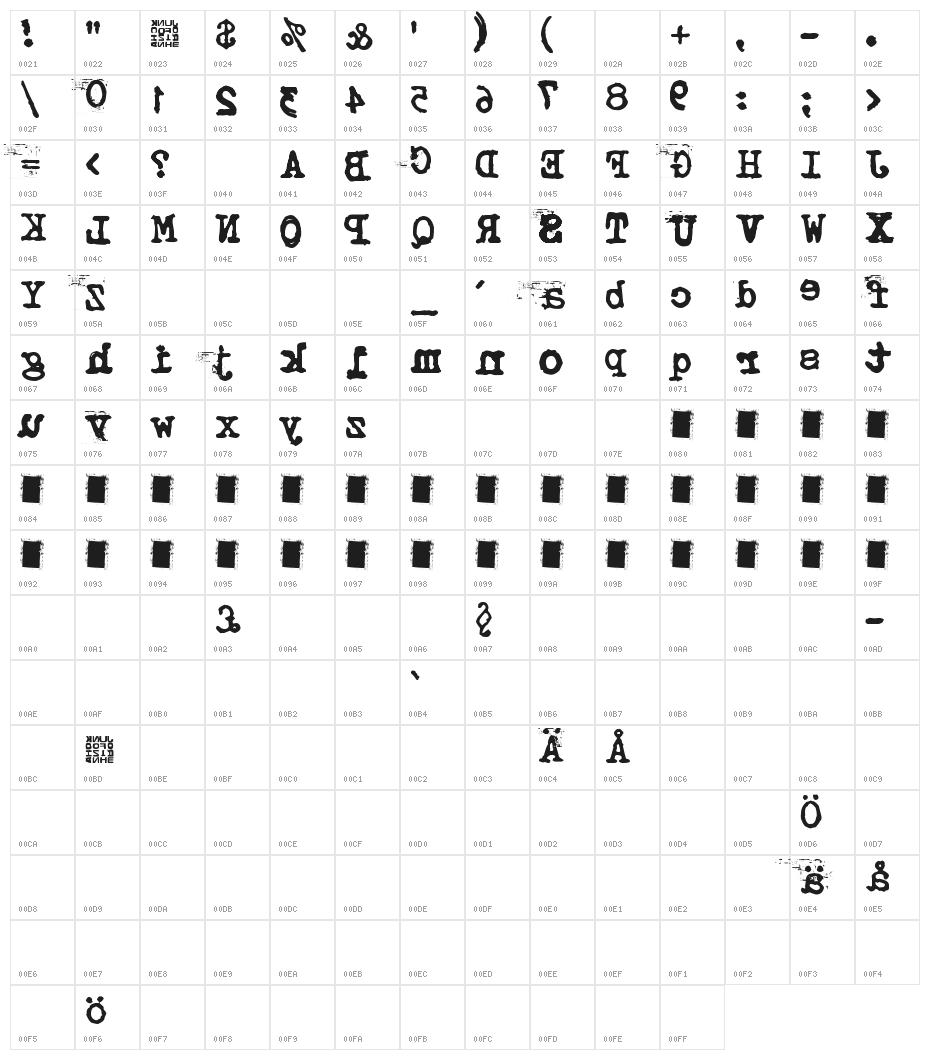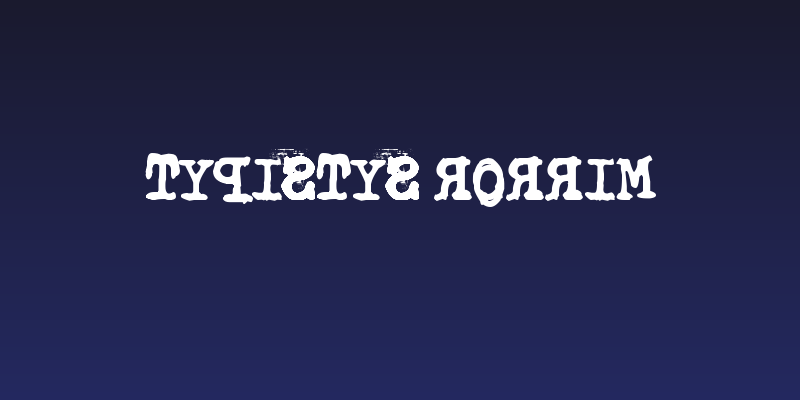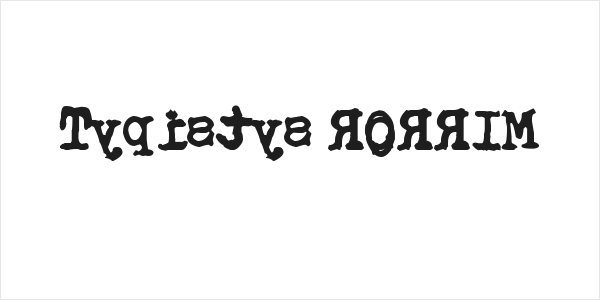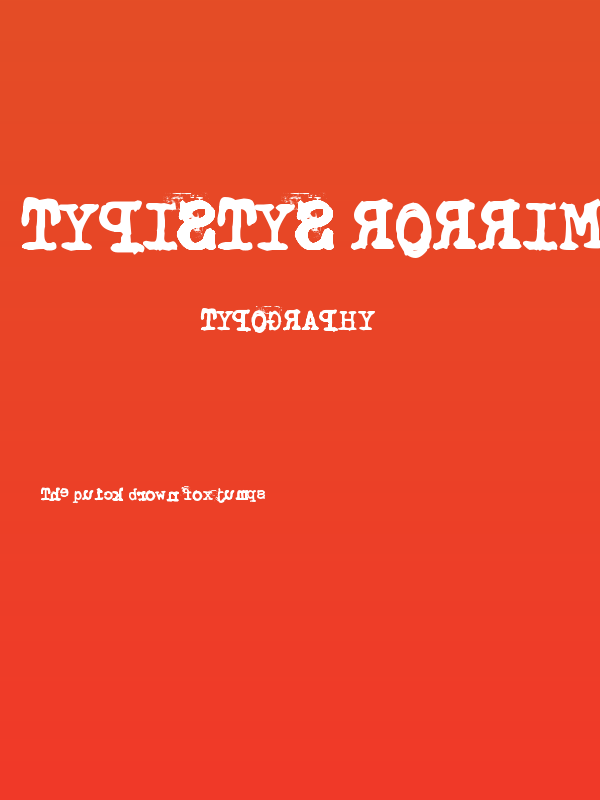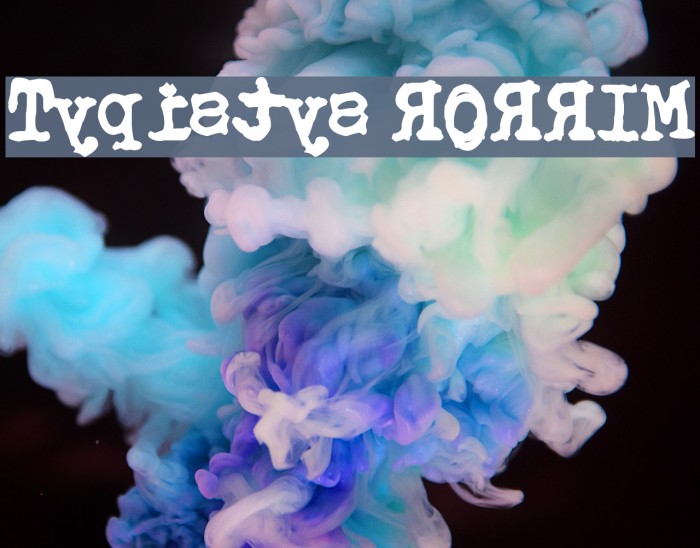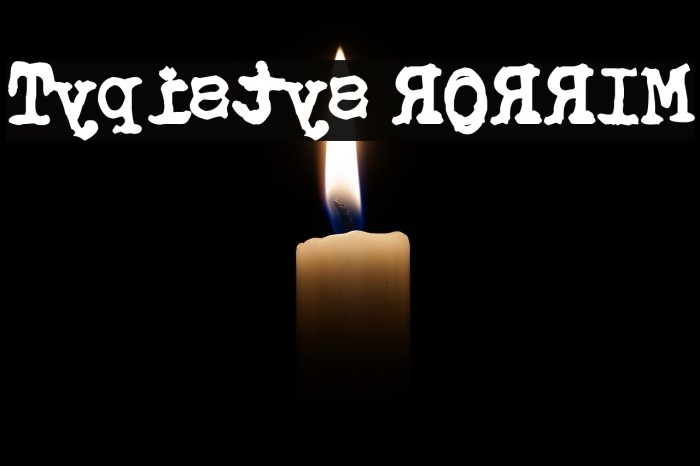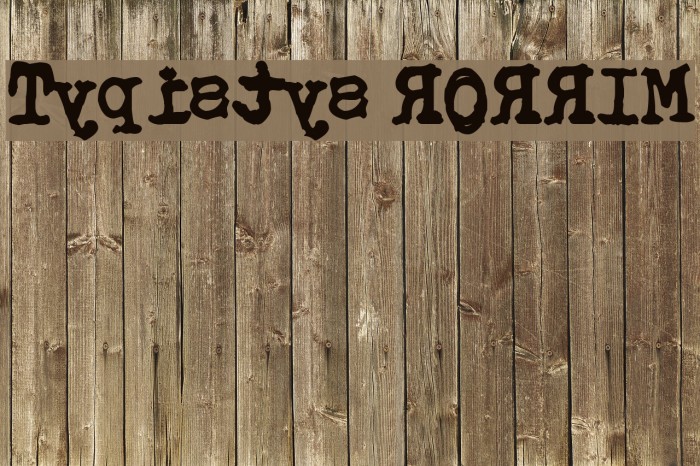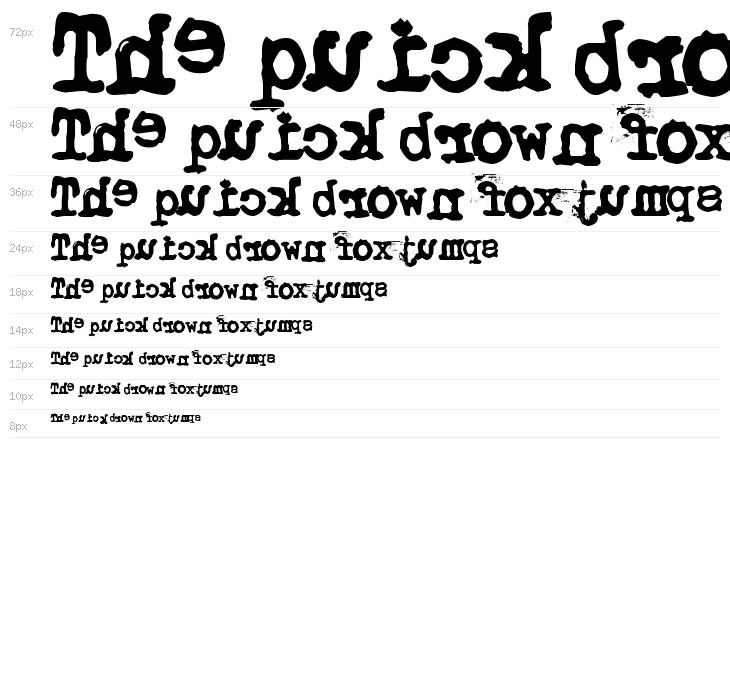
Typistys RORRIM Font
Typistys RORRIM Description
This font features a distressed, grunge style with a bold and rugged appearance. The characters are heavily textured, giving them a worn and vintage look. The uppercase and lowercase letters maintain a consistent style, with irregular edges and a hand-crafted feel. Numbers and special characters follow the same aesthetic, adding to the overall cohesive design. The font's unique appearance makes it stand out, perfect for projects that require a touch of edginess and character.
| Overall Style | Vintage, Grunge |
| Use Case | Logos, Posters, Headlines |
| Proposed Projects | Ideal for album covers, posters, branding for alternative or rock-themed events, and any design needing a gritty, vintage touch. |